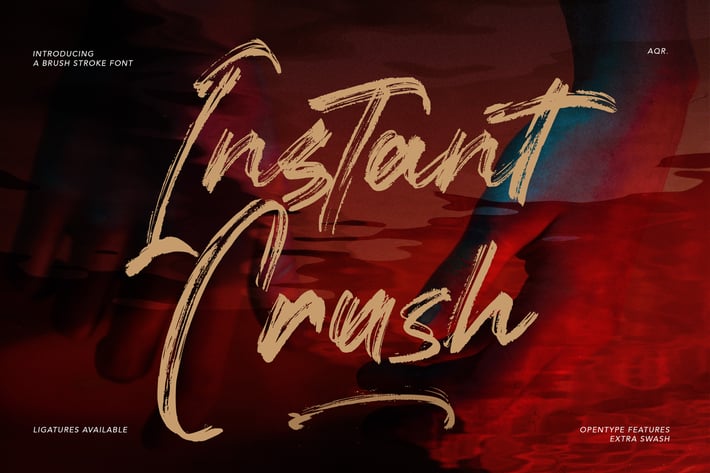
Instant Crush - Ligatures Font
Instant Crush - Ligatures Font contains a lowercase, uppercase, symbol, and also supports multi-language. There’s a lot of ligature in this font. Instant Crush - Ligatures Font also comes with ligatures, stylistic alternates and many more.
this font suitable for fashion, branding, catalog and other design that you want.